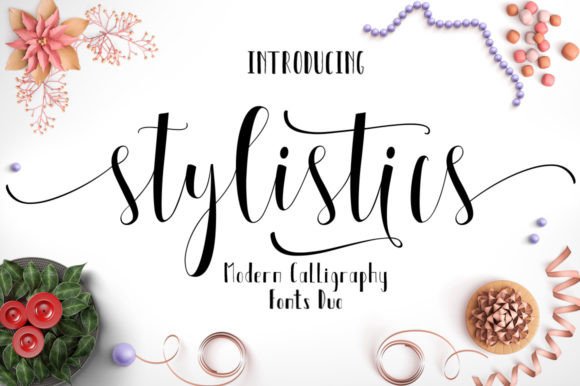
Behold the Stylistics Script Font Duo, a match made in typographic heaven. This dynamic duo comprises two stunning fonts: Stylistics Script and Stylistics Sans, each possessing its own distinctive charm.
Step into the world of Stylistics Script, a smoothly rounded font with lines so perfect, they seem crafted by the hand of a master calligrapher. Its 505 unique glyphs, effortlessly accessible via PUA encoding, await your creative touch, ready to transform your words into works of art.
Stylistics Script is a veritable chameleon, effortlessly adapting to a myriad of purposes. Whether you're crafting elegant wedding invitations, designing enchanting nursery wall art, or adding a touch of whimsy to your shorts, this font will elevate your creations with its versatile nature. Its beauty shines both in print and on screen, ensuring your designs captivate audiences across all platforms.
Accompanying Stylistics Script is its perfect partner, Stylistics Sans. This sans serif font exudes a minimalist elegance, complementing the intricate details of Stylistics Script flawlessly. Together, these fonts create a harmonious blend that will lend a handmade feel to your work, inviting your audience to connect with the authenticity of your designs.
With Stylistics Script Font Duo, the possibilities are boundless. Unleash your creativity and let these fonts guide you to design masterpieces that speak to the hearts of your audience. Prepare to be captivated by the beauty of Stylistics Script Font Duo, a typographic treasure that will transform your designs into captivating expressions of art.